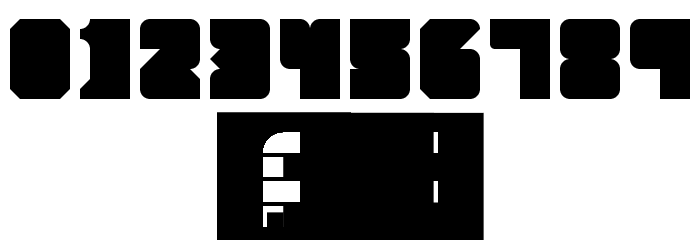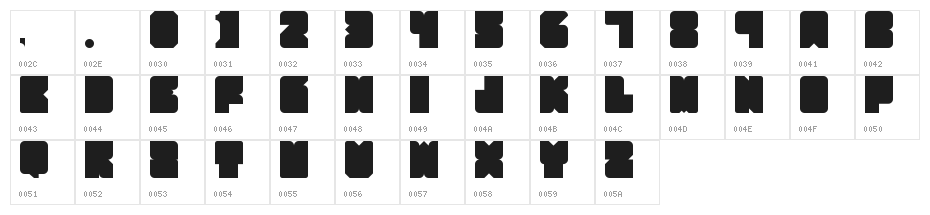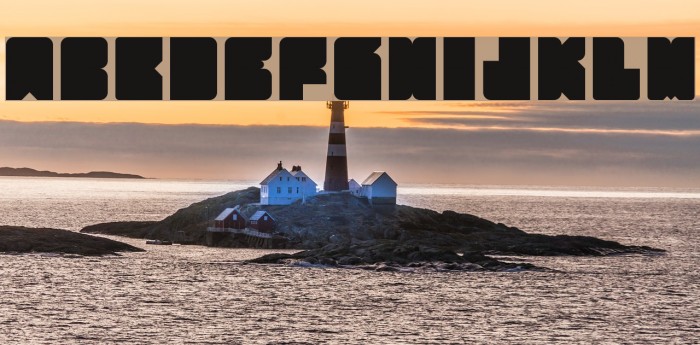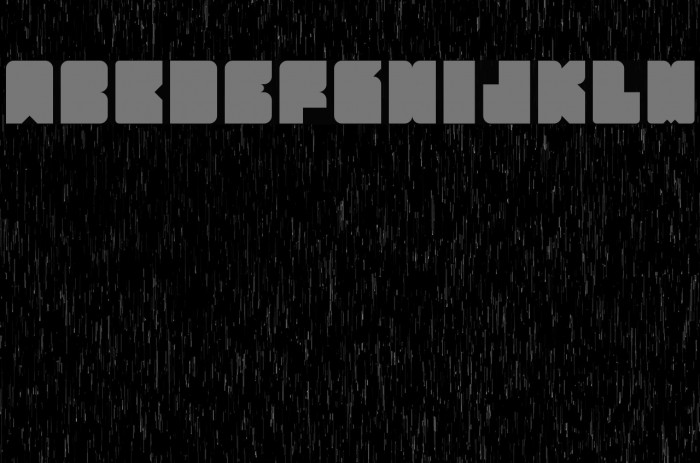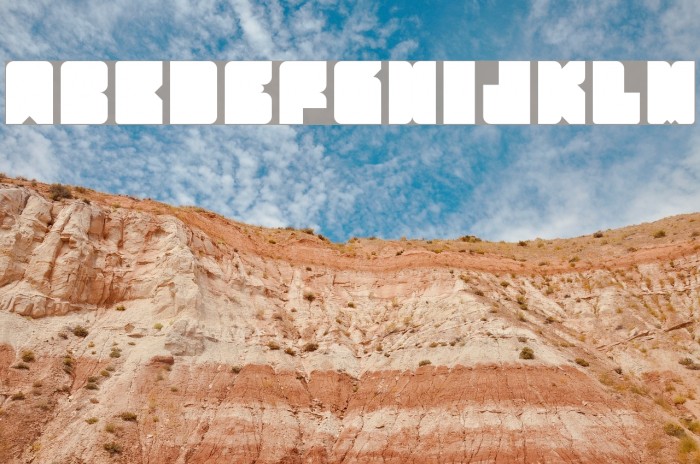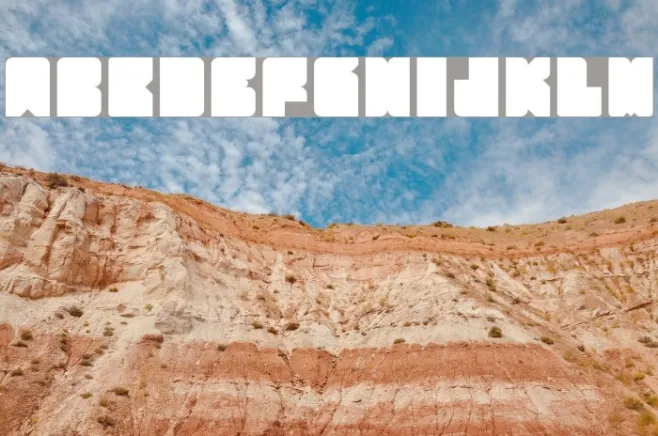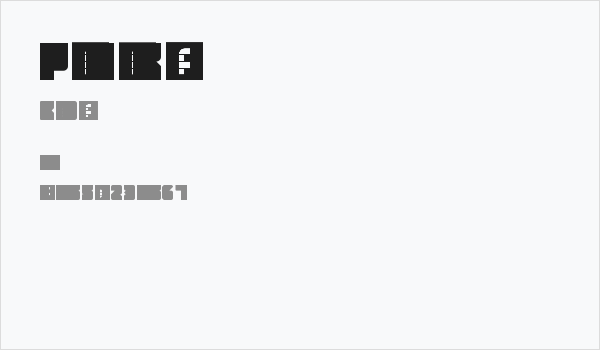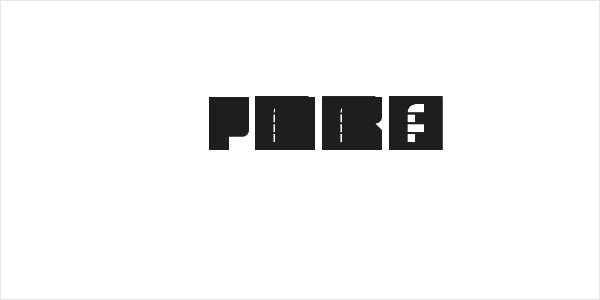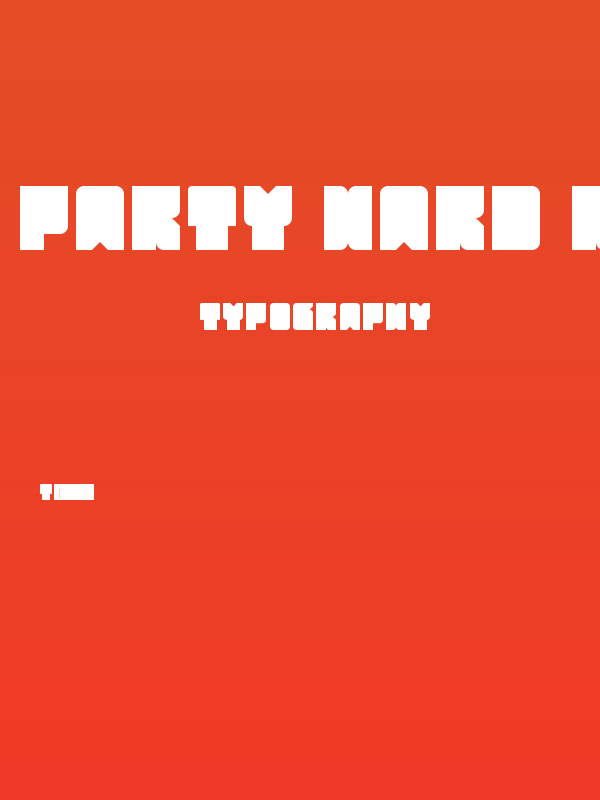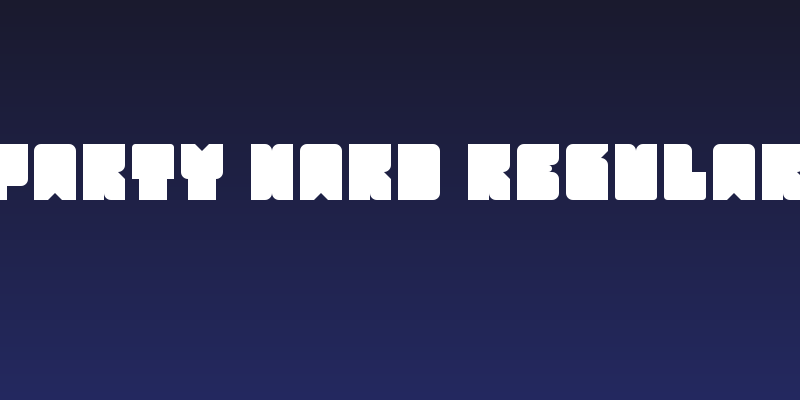
Party Hard Regular Font
Party Hard Regular Description
This bold and striking font features a blocky, geometric design with a strong presence. The characters are uniformly wide, with sharp angles and a consistent thickness throughout. The uppercase and lowercase letters maintain a cohesive style, making it suitable for impactful headlines or logos. The numbers and special characters follow the same bold design, ensuring a uniform appearance across all text elements. The font's unique style is both modern and playful, making it ideal for projects that require a strong visual impact.
| Proposed Projects | Ideal for posters, logos, event invitations, and branding materials that require a bold statement. |